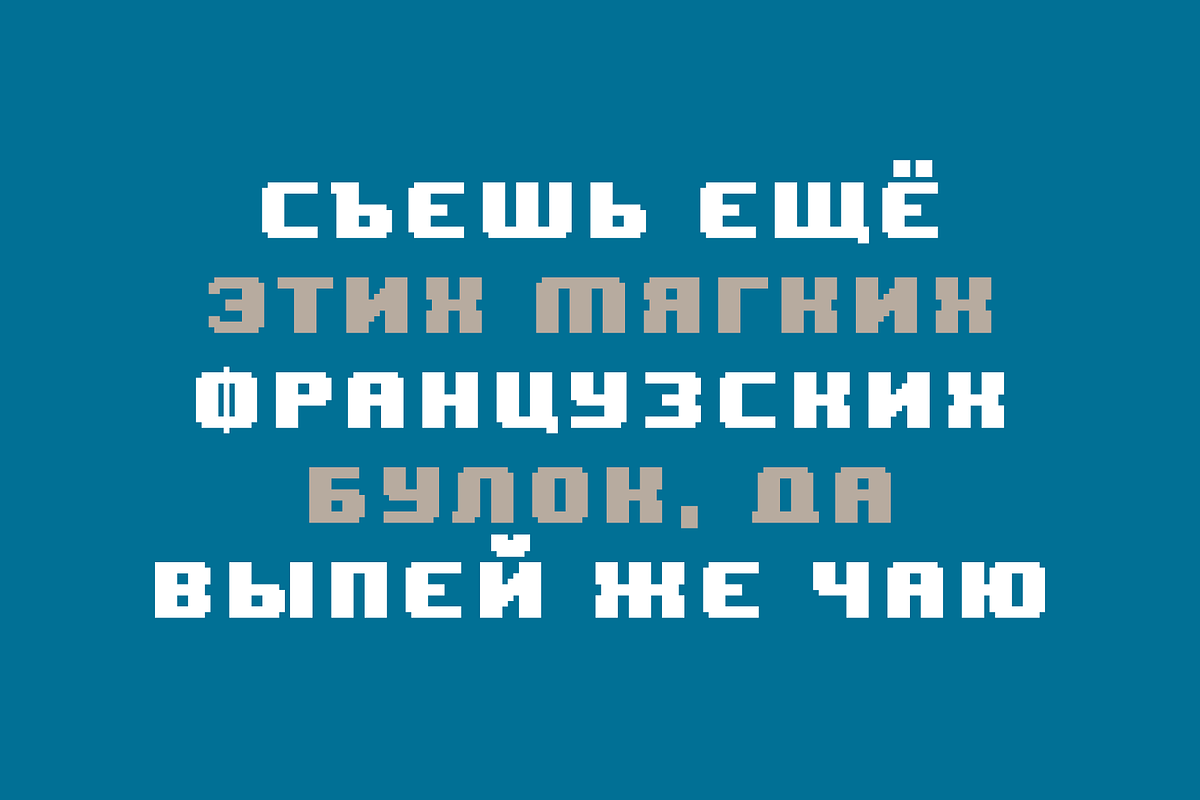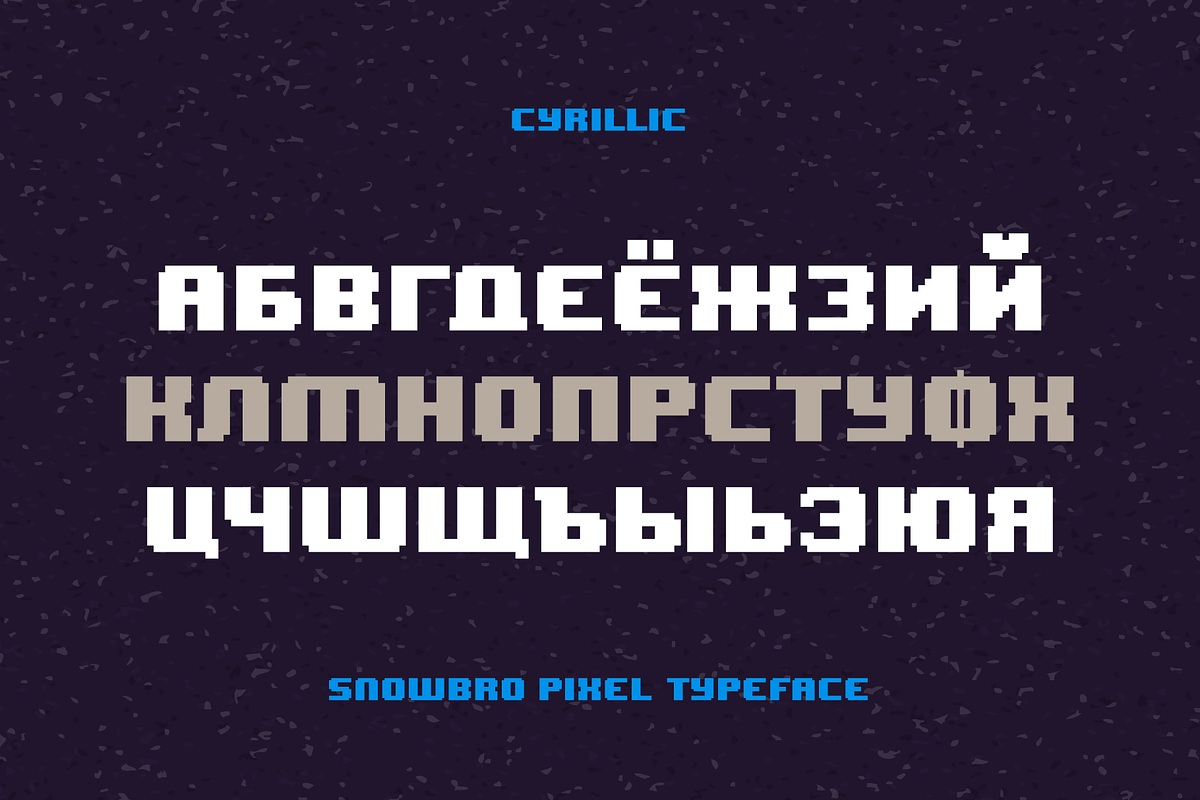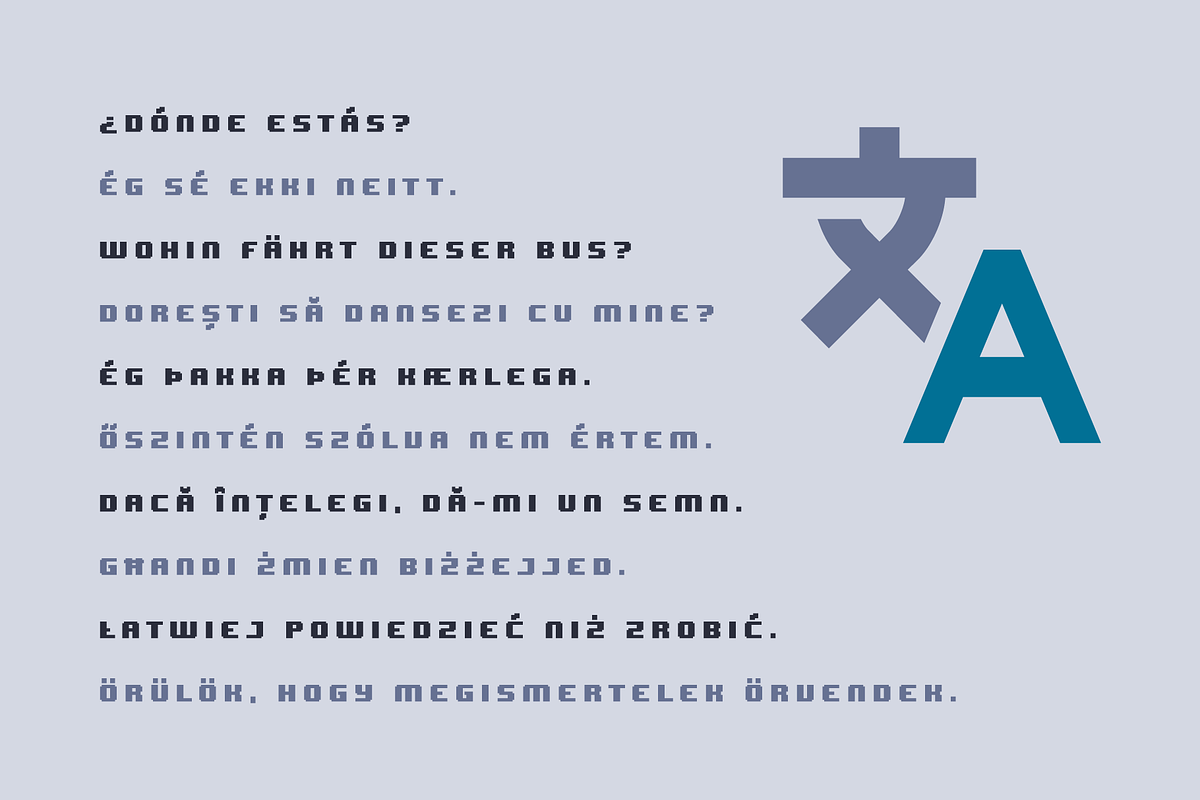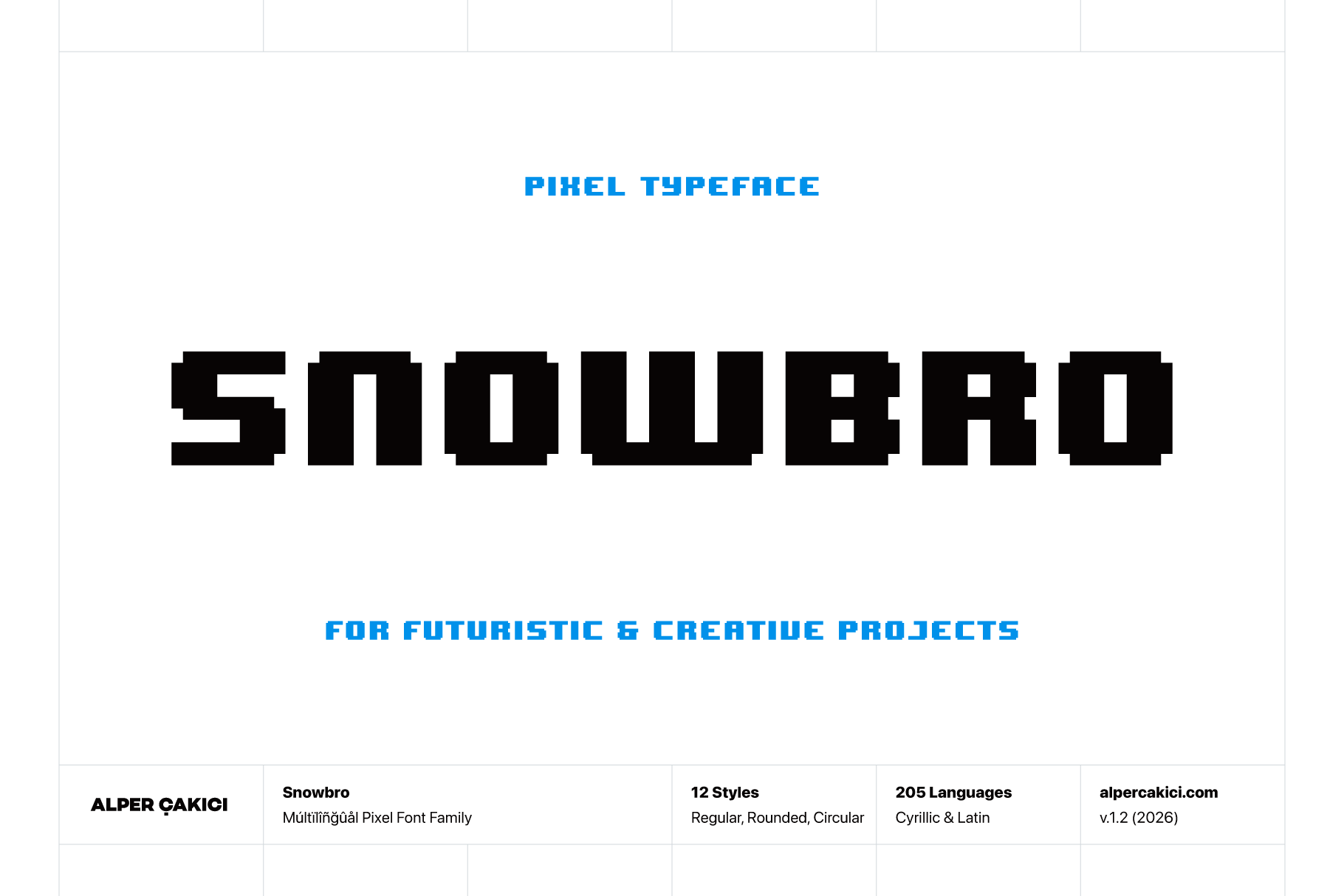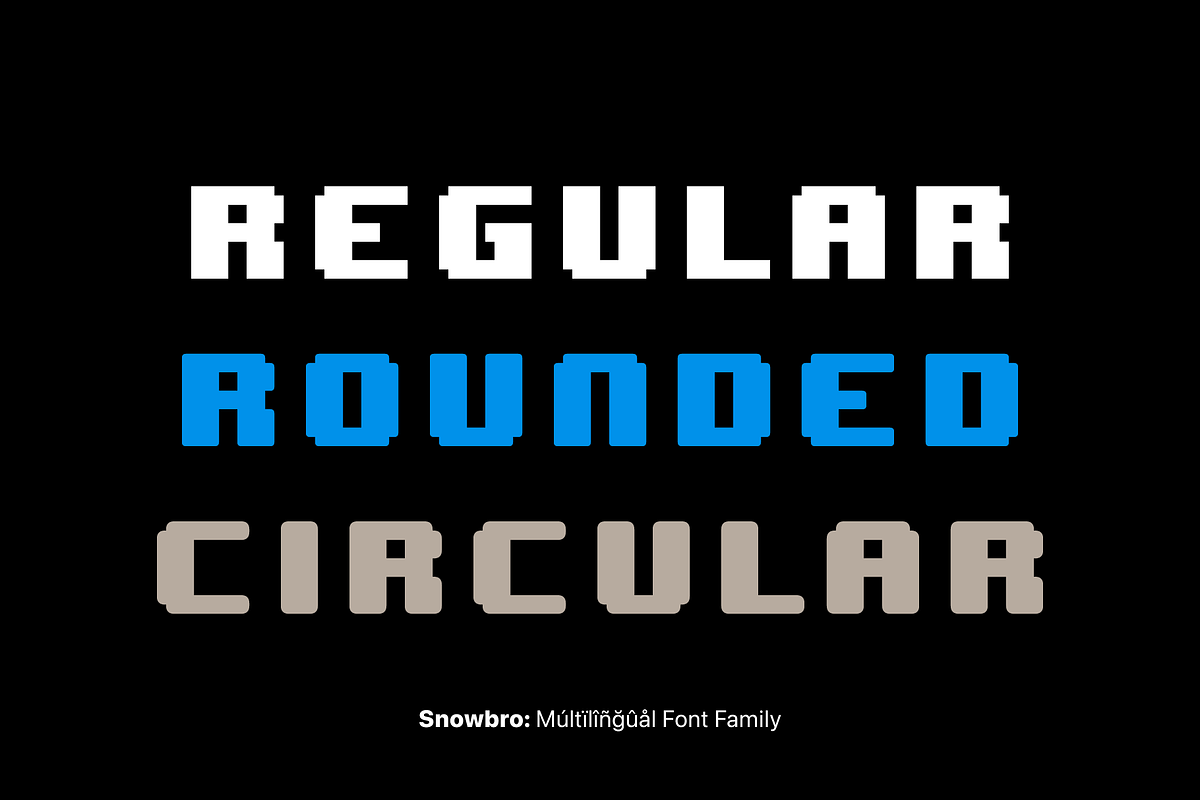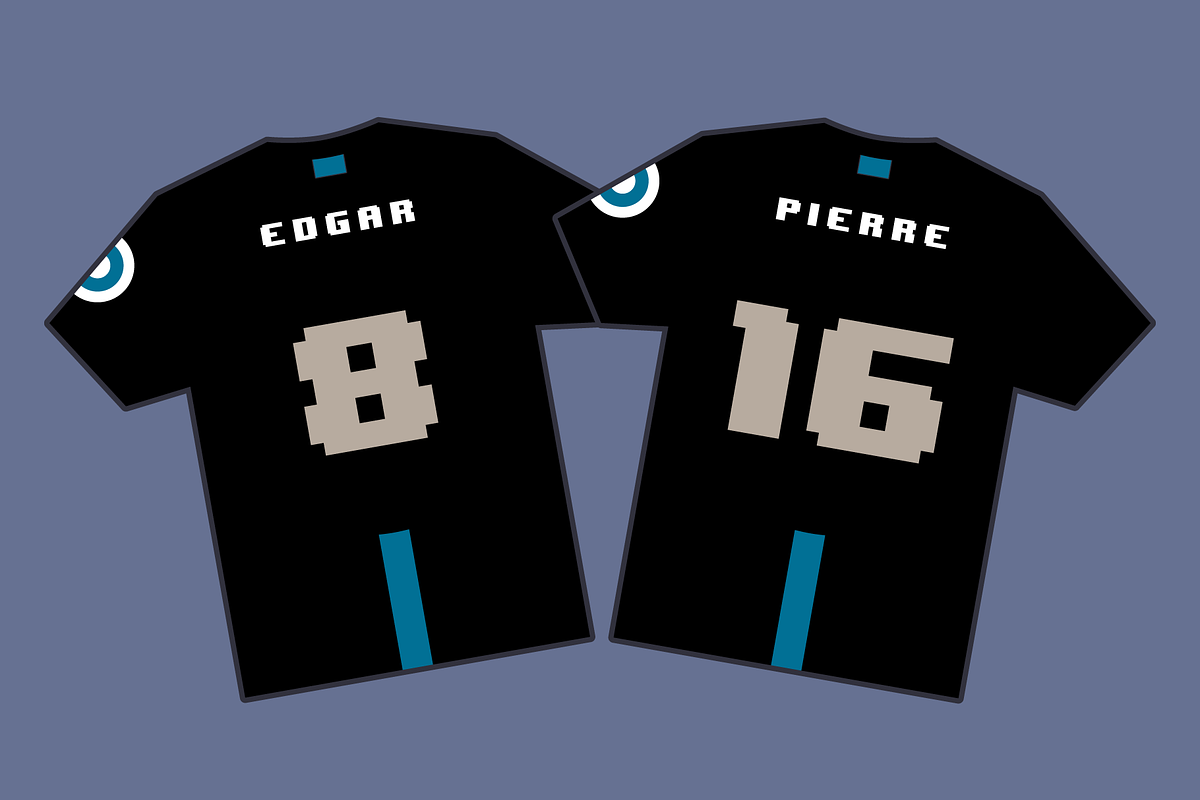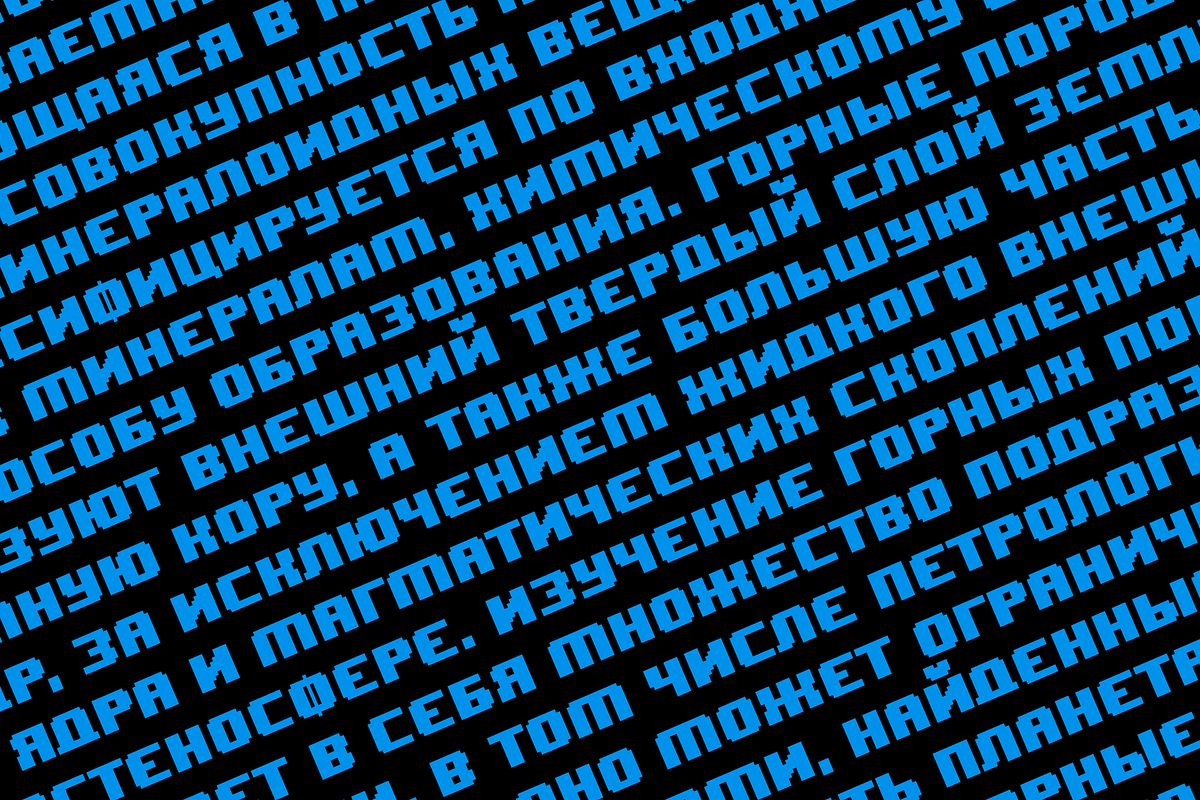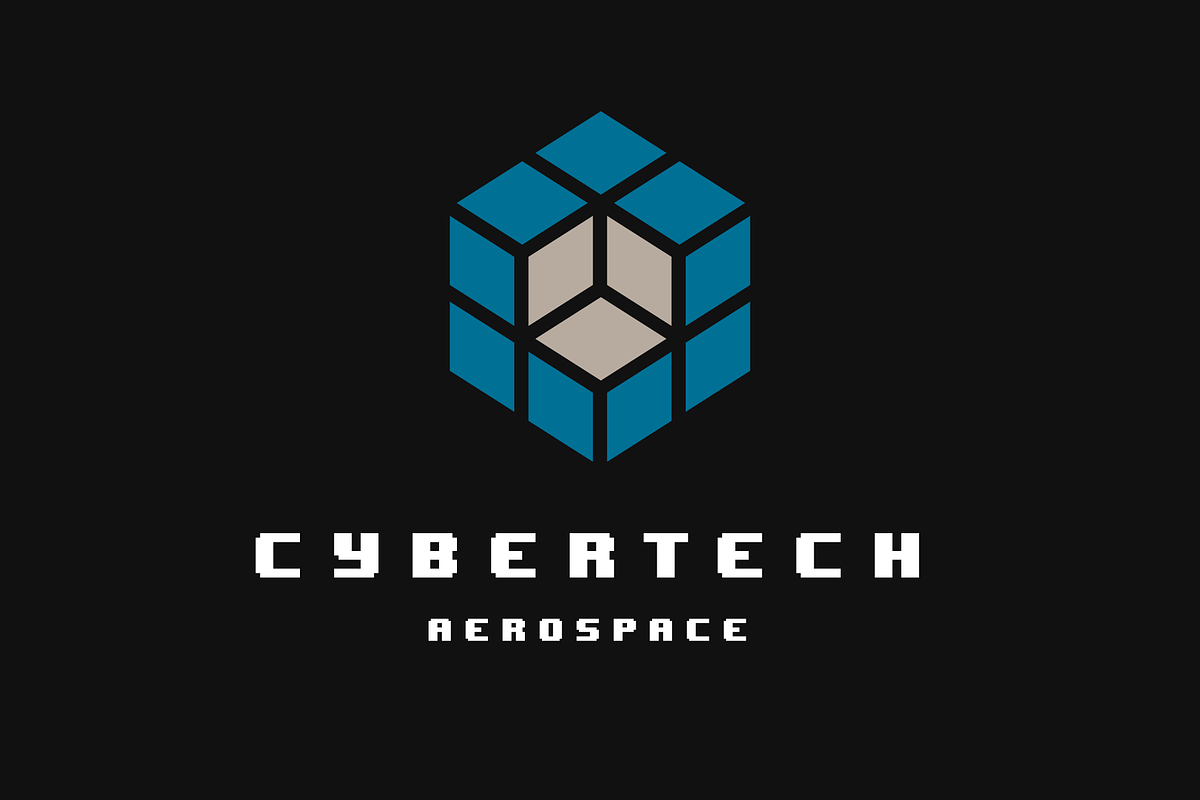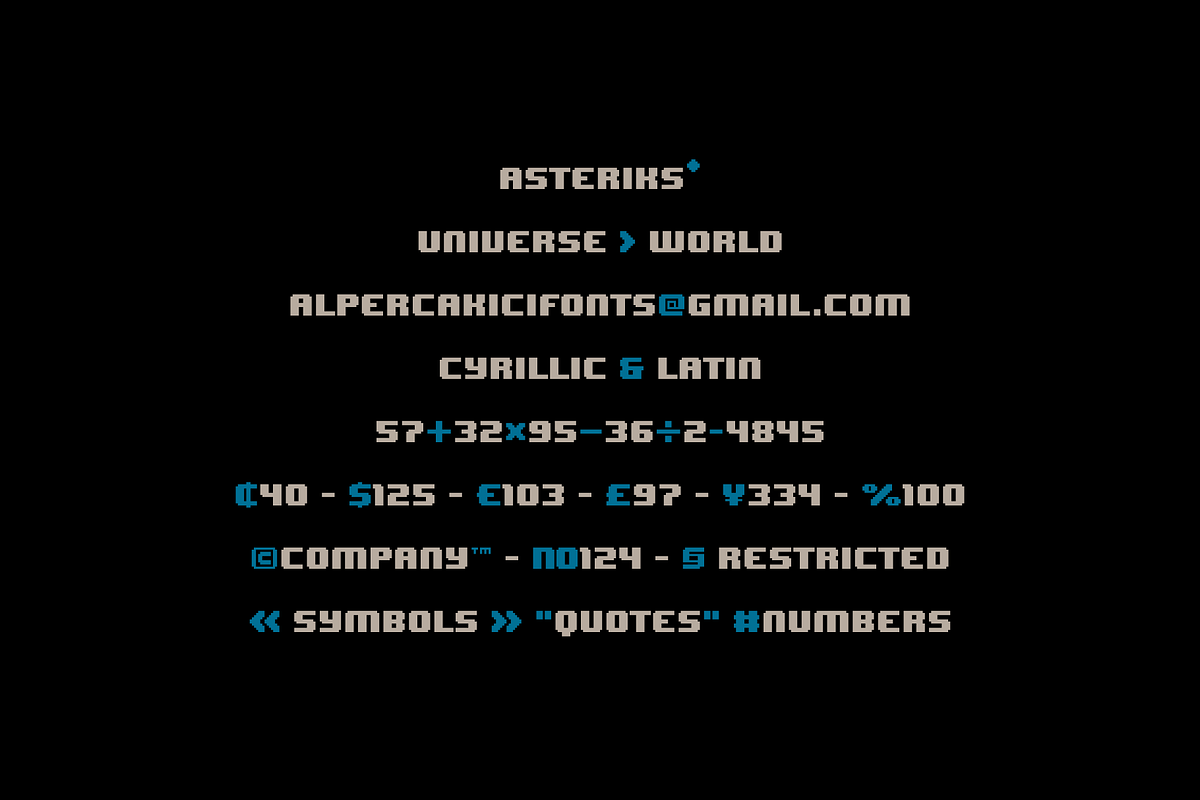
Snowbro - Pixel Typeface
Snowbro is a bold, all-caps pixel typeface designed to bring a strong retro-digital personality to contemporary typography. Built around a crisp pixel construction and expressive geometric forms, Snowbro combines the visual character of classic screen graphics with the versatility required for modern display design.
Designed specifically with pixel aesthetics in mind, Snowbro delivers a distinctive blocky appearance that remains highly recognizable at display sizes. Its bold structure gives headlines, titles, logos, posters, game interfaces, packaging, social media graphics, and digital artwork an immediate visual presence.
The family includes 12 carefully developed styles, offering a broad range of treatments while maintaining the characteristic Snowbro design language:
Regular, Rounded, Circular, Inline, Outline, and Shadow, with complementary Inline, Outline, and Shadow variations for the Circular and Rounded styles. These styles make it easy to move between clean pixel typography, layered display effects, outlined lettering, dimensional treatments, and softer rounded constructions.
Snowbro is available in Cyrillic and Latin, supporting an extensive multilingual character set covering 205 languages. This broad language support makes the family suitable for international branding, multilingual games, digital products, editorial graphics, advertising, and global creative projects.
With 551 glyphs, Snowbro provides a substantial character repertoire for professional typography and display applications. Its carefully constructed pixel forms are designed to perform across both digital and physical media, making the typeface display-optimized for screen and print.
The pixel construction gives Snowbro a particularly strong connection to retro gaming, arcade graphics, 8-bit and 16-bit aesthetics, digital interfaces, computer culture, cyber-inspired visuals, technology branding, and contemporary nostalgic design. At the same time, its range of styles allows it to move beyond purely retro applications and work effectively in modern posters, apparel, packaging, logos, titles, UI graphics, and editorial compositions.
The Inline and Outline styles introduce additional graphic depth without requiring separate effects, while the Shadow styles provide an instantly dimensional appearance. The Circular and Rounded variants offer alternative interpretations of the core pixel structure, giving designers greater flexibility when matching the typeface to different visual identities.
Snowbro works especially well for large headlines, game titles, logos, posters, album artwork, event graphics, merchandise, stickers, badges, packaging, UI elements, and attention-grabbing social media typography. Its heavy construction and all-caps character make it particularly effective when typography needs to function as a graphic element rather than simply convey information.
Whether you're creating a retro-inspired game, a futuristic digital interface, a bold brand identity, a nostalgic poster, or a contemporary editorial design, Snowbro provides a versatile pixel toolkit with a strong visual personality.
12 styles
Pixel / Bold / All-Caps
551 glyphs
Cyrillic & Latin
205 languages supported
Regular, Rounded & Circular styles
Inline, Outline & Shadow variations
Display optimized
Suitable for screen & print
Designed for digital and print applications
Ideal for gaming, arcade graphics, branding, posters, packaging, UI, logos, apparel, titles, and editorial design
Extensive multilingual support for international projects